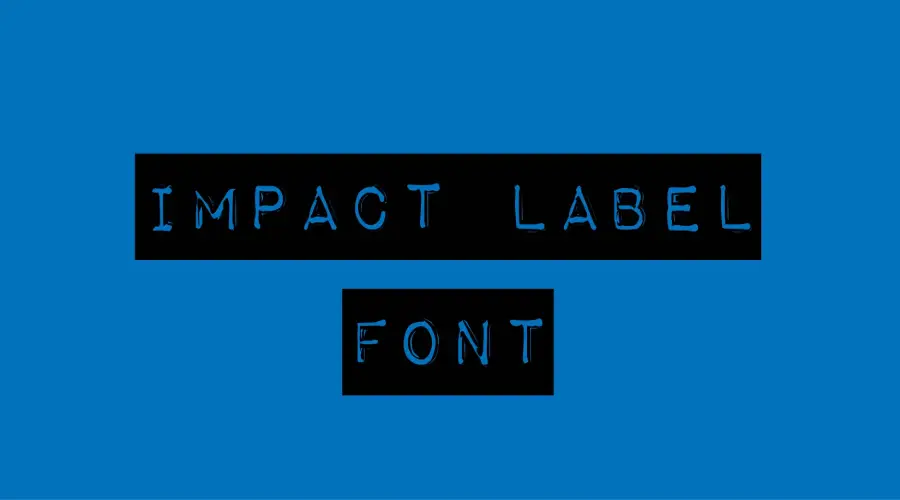
Michael Tension made the Impact Label font, which was put out by his foundry named Tension-Type Foundry. It is a high-quality display-style decorative font.
The font has two styles available: regular style and reversed regular style. The regular style has 168 glyphs and 192 characters, and the reversed regular style has 165 glyphs and 195 characters.
The character map of the font includes Basic Latin (87), Latin 1 Supplement (71), Latin Extended-A(8), spacing modifier letters (4), general punctuation (14), letterlike symbols (1), and mathematical (1). The font supports CSS and HTML and it supports more than 67 languages.
The Impact Label font is suitable for logos, branding, invitations, stationery, wedding designs, invitations, logos, business cards, covers, shirts, social media posts, and more. It will also be used to create an awesome image, text with various types of colors and text.